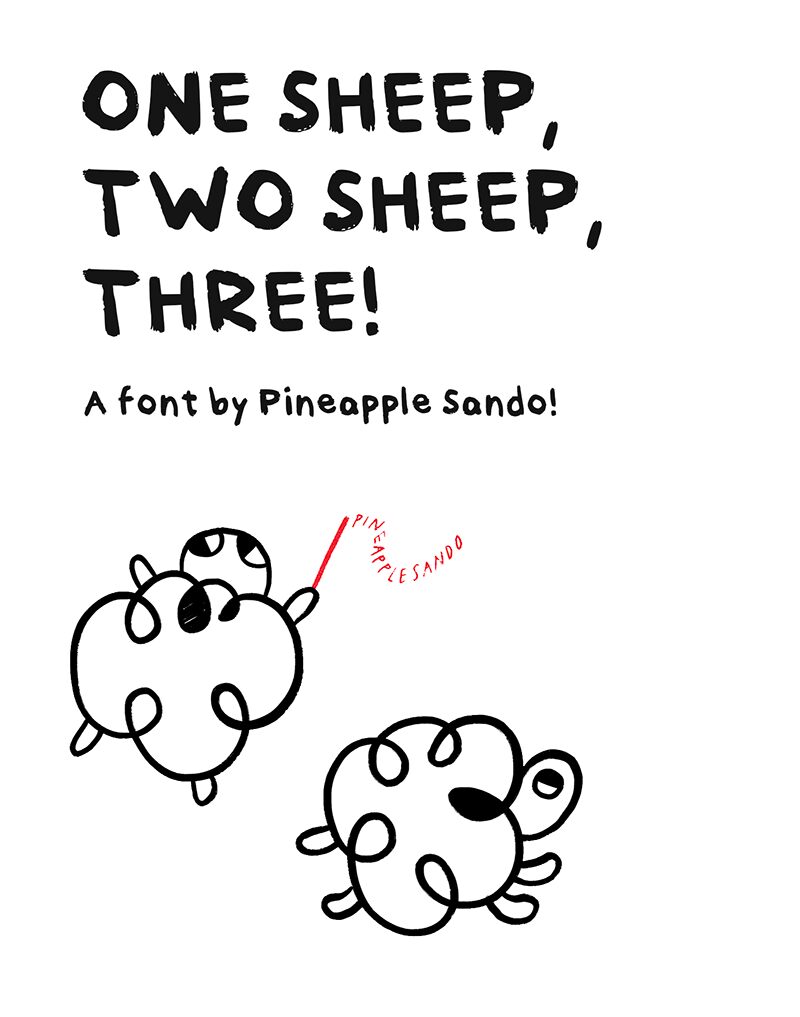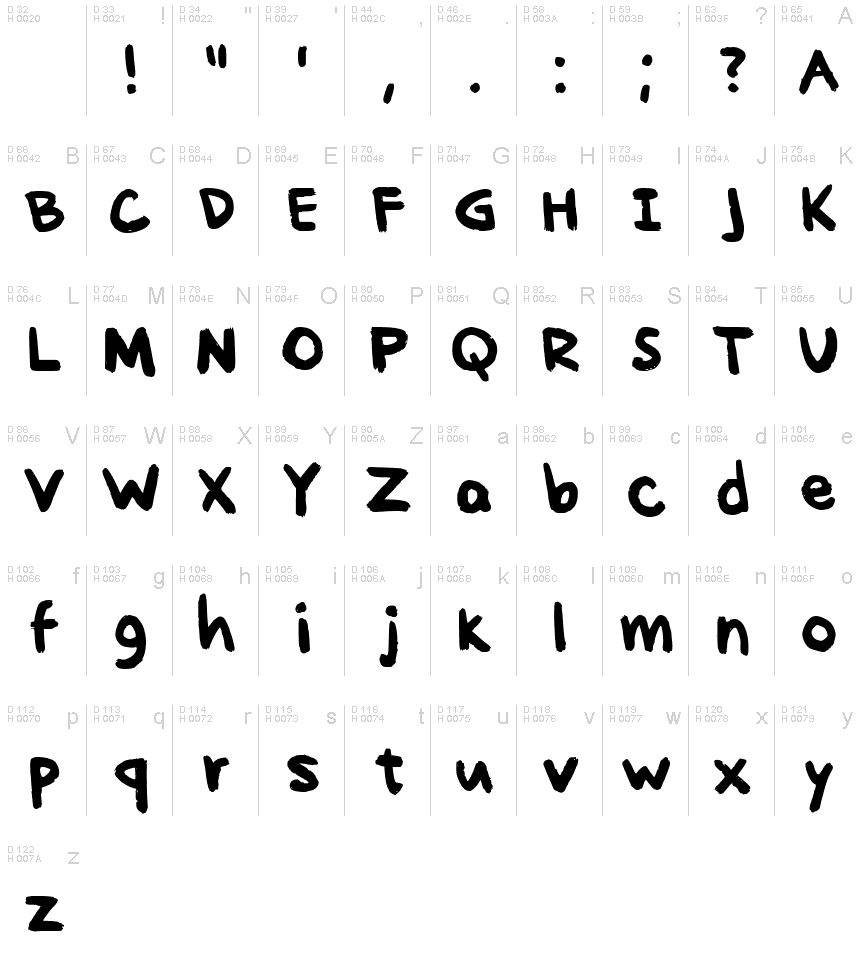
Onesheeptwosheepthree Regular
Get ready to make a statement with One Sheep Two Sheep Three - the bold brush font designed by pineapplesando. This versatile typeface is perfect for adding a touch of character and playfulness to your designs, from eye-catching logos and headlines to social media graphics and product packaging. With its thick, marker-like strokes, One Sheep Two Sheep Three commands attention and exudes creativity. Whether you're designing for a trendy boutique or an edgy music festival, this semi-bold font will help you stand out from the crowd. So go ahead, unleash your inner artist and let One Sheep Two Sheep Three do the talking!